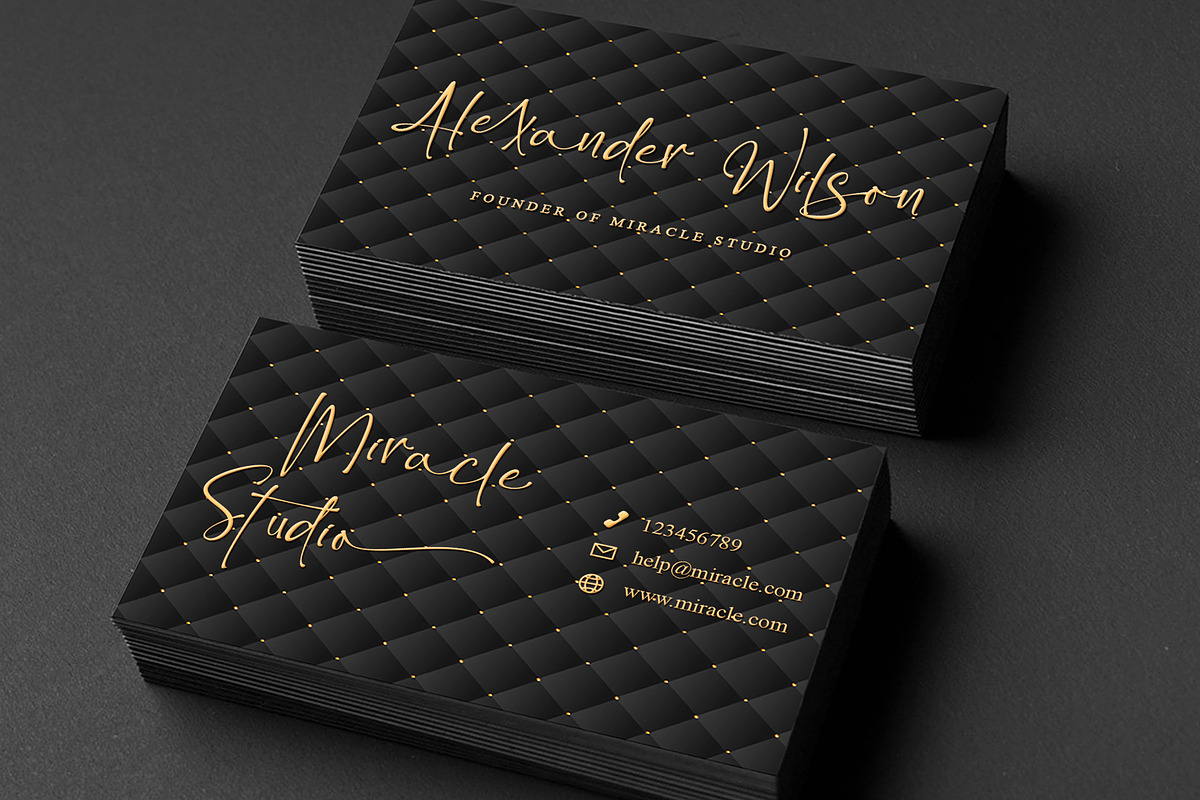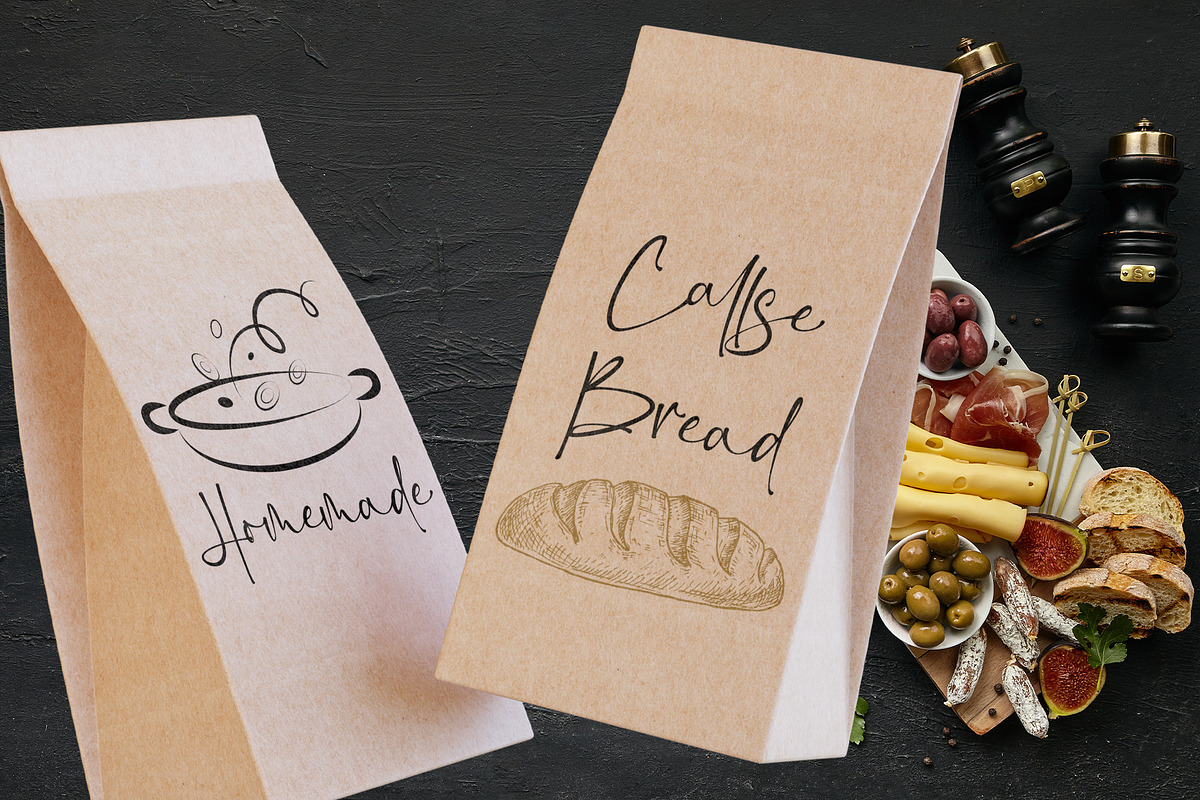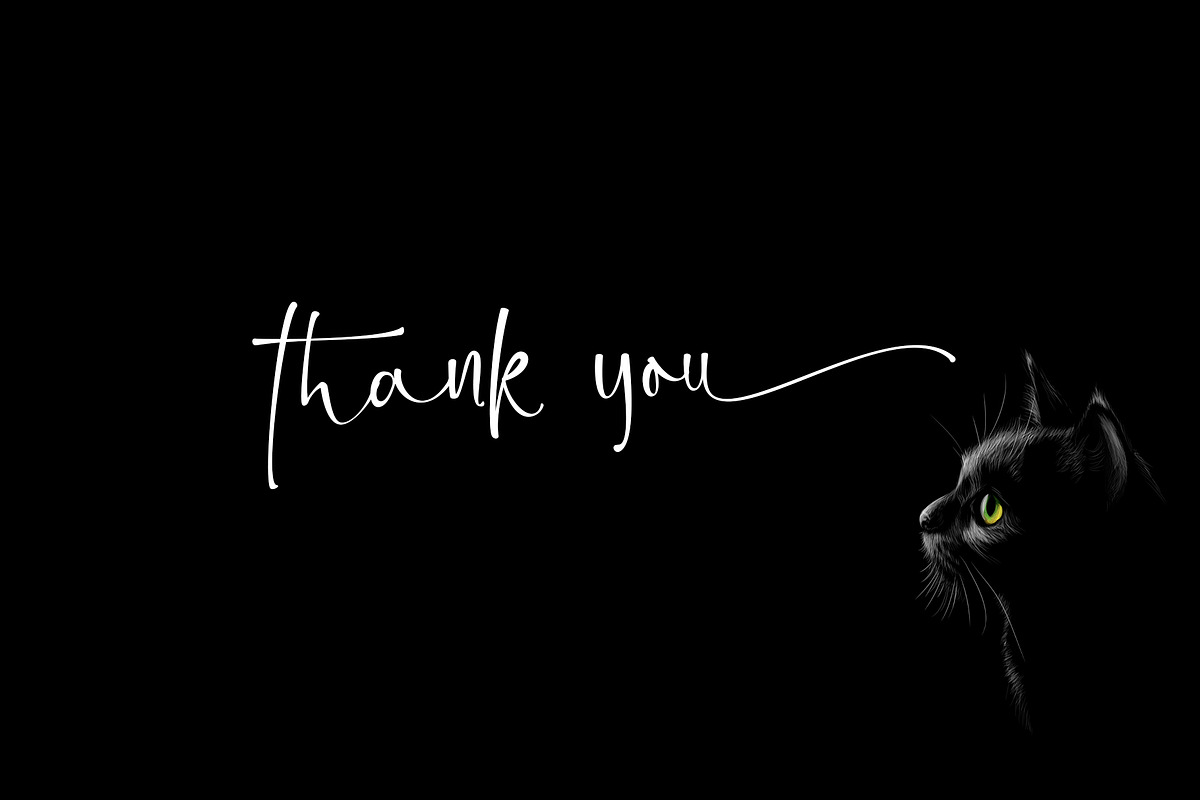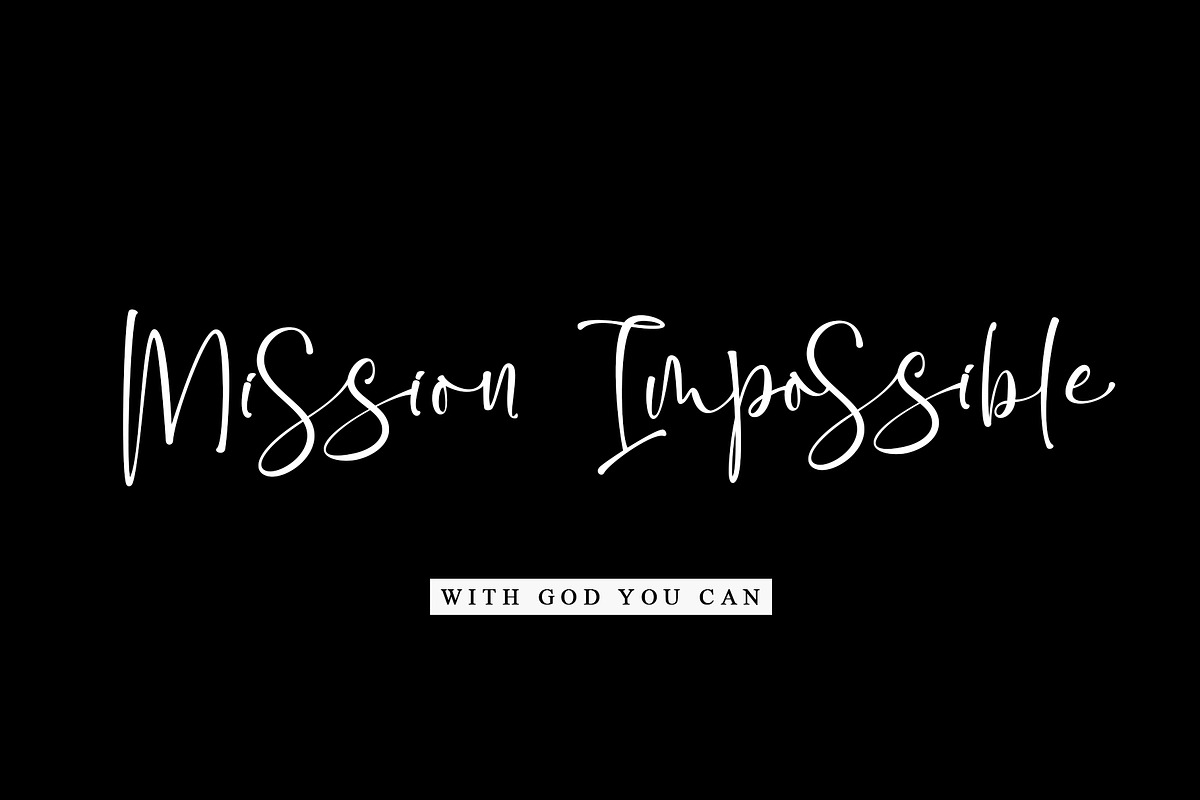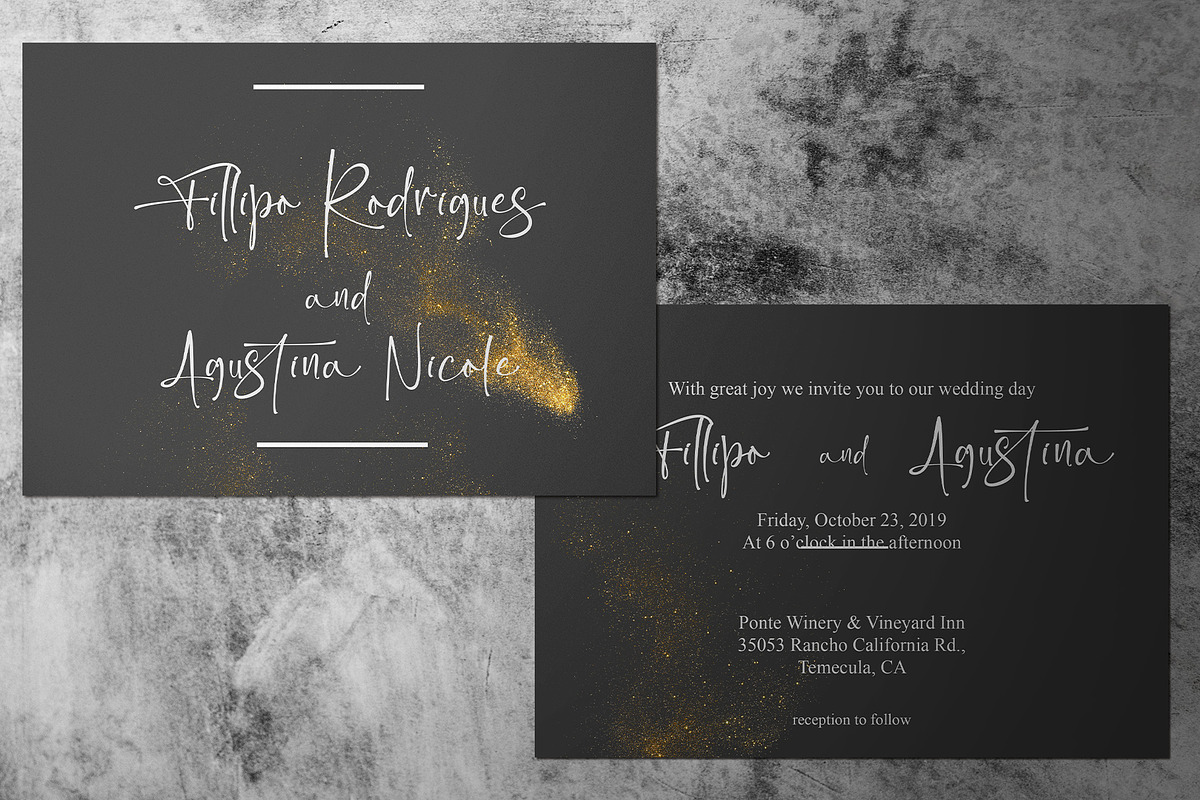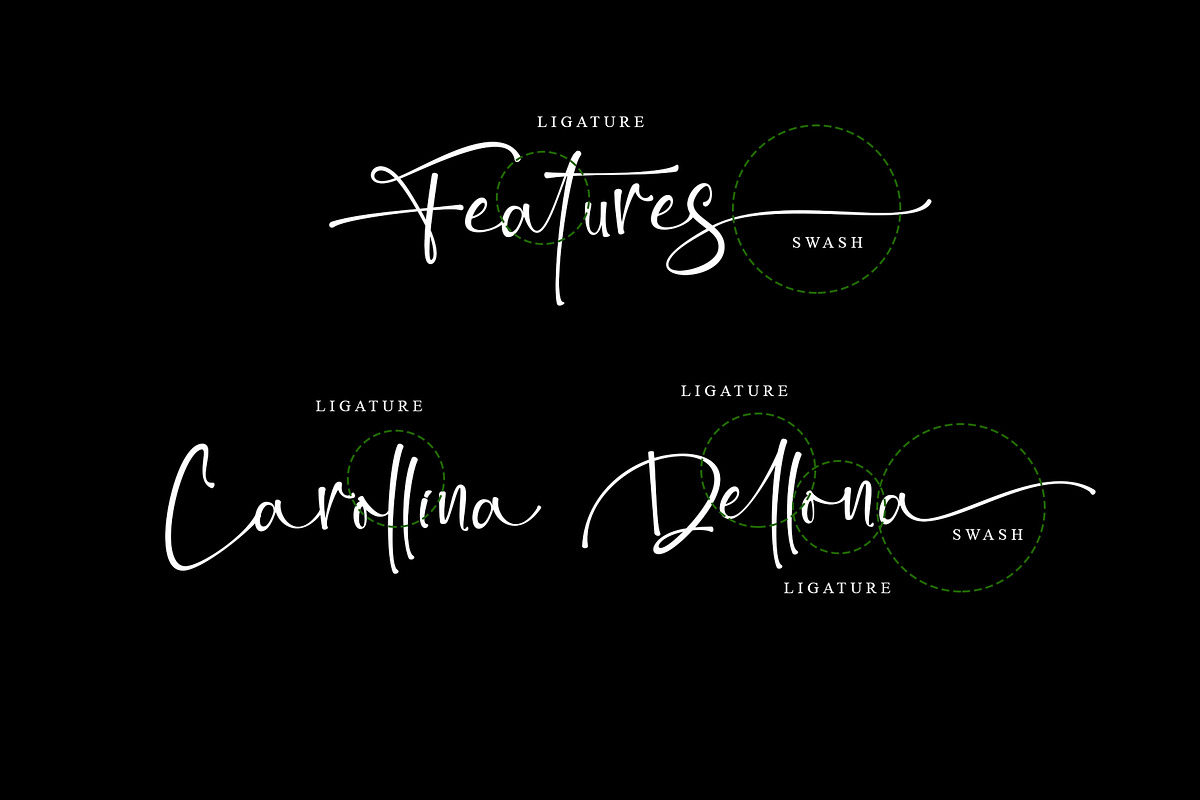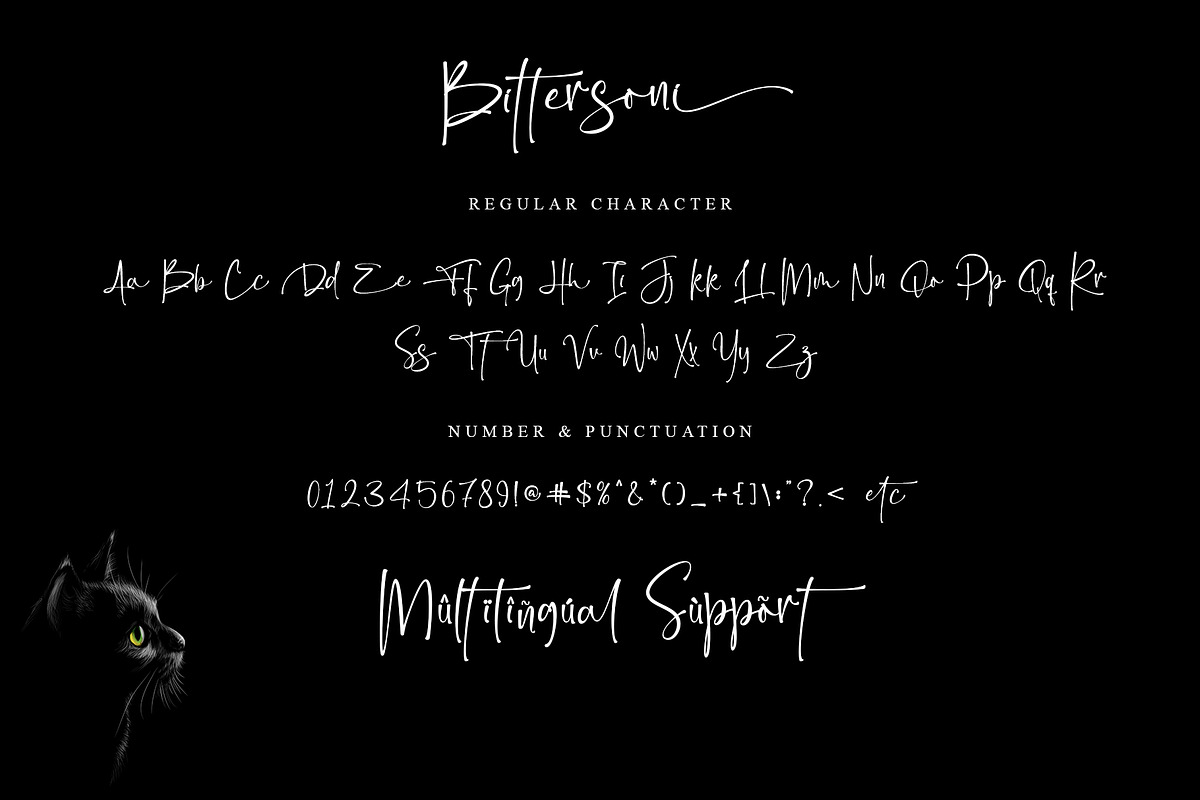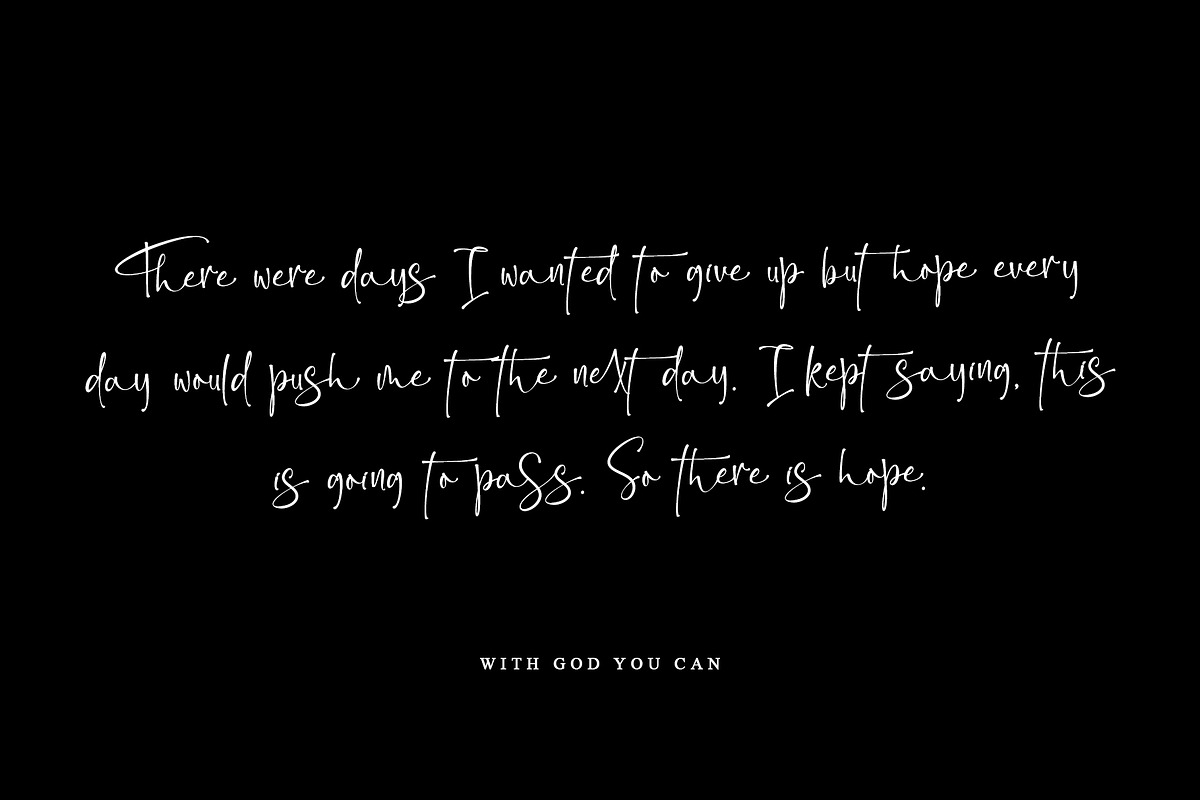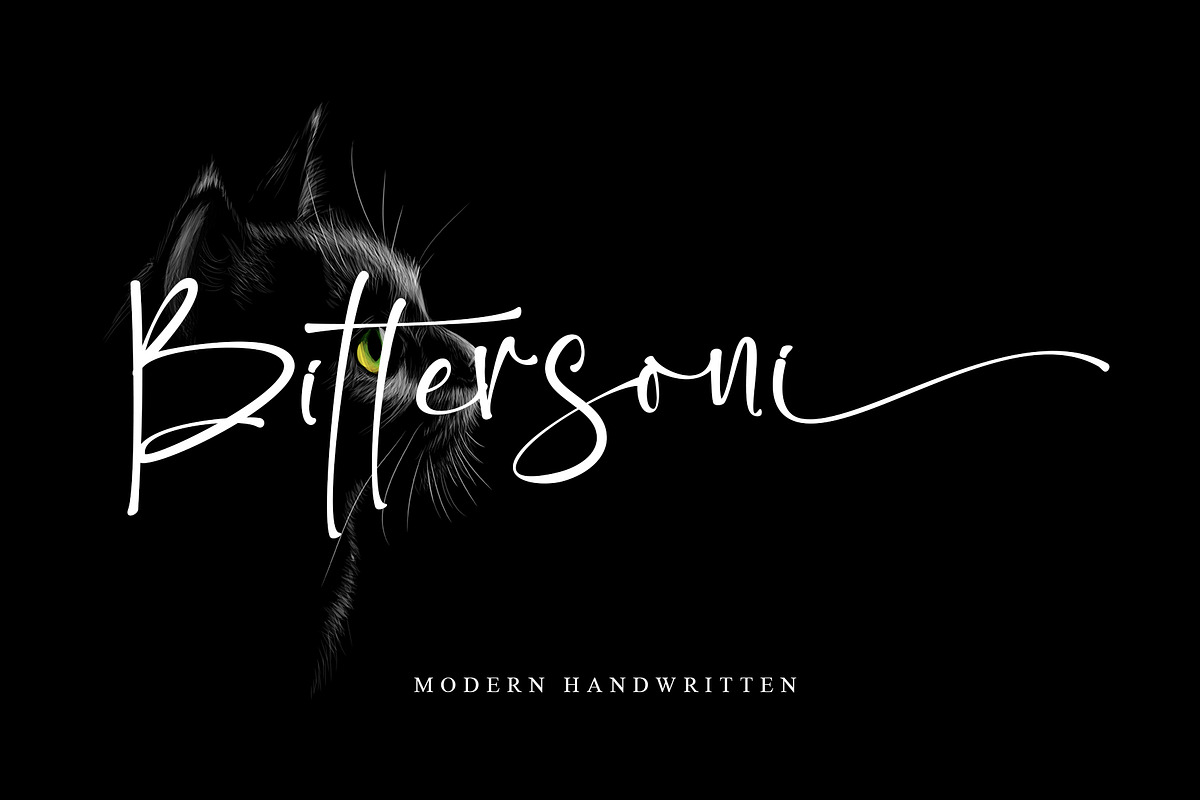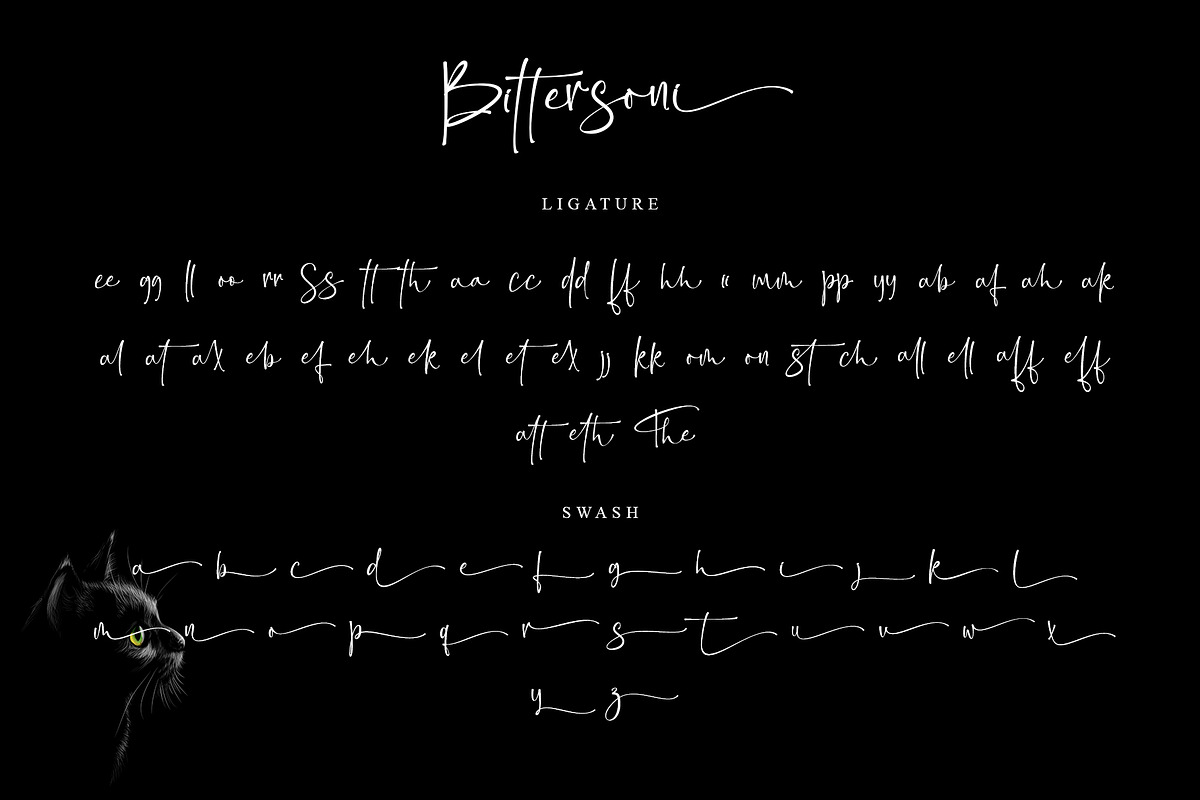
Bittersoni
Bittersoni is an enchanting handwritten font. This versatile script font has a wide spectrum of applications ranging from greeting cards, logos to headlines and is guaranteed to add a romantic or casual feel to your next project. Add it confidently to your projects, and you will love the results. This font is PUA encoded which means you can access all the beautiful glyphs and swashes with ease!
- Support multilingual; ä ö ü Ä Ö Ü ß ¿ ¡
- Swash & Ligature
- lowercase and uppercase letters